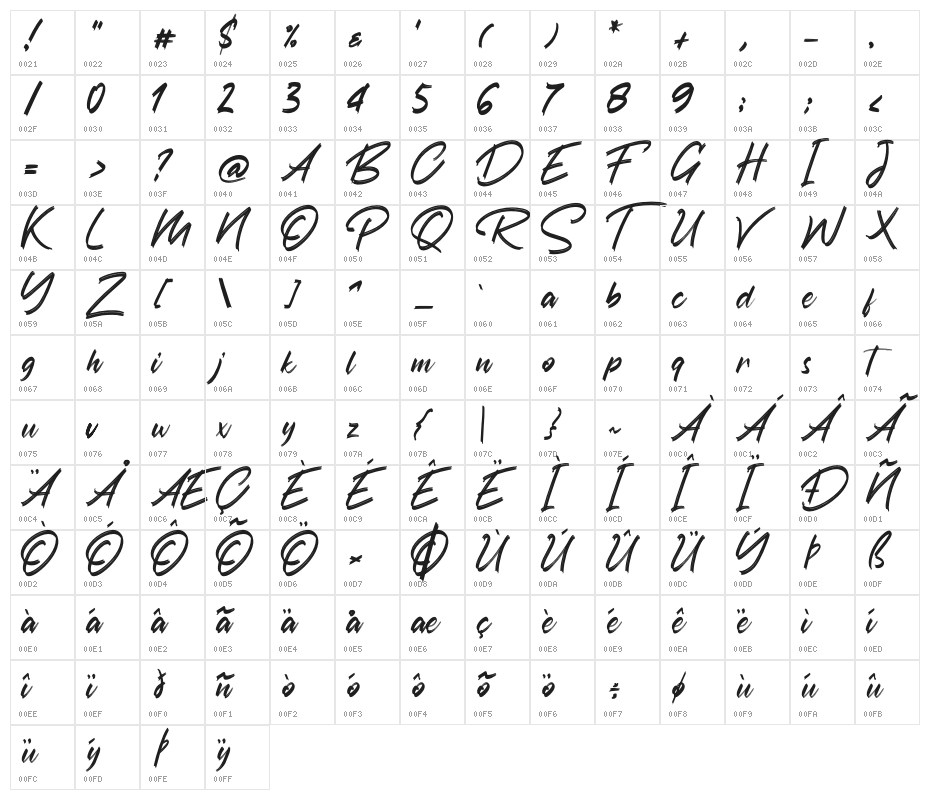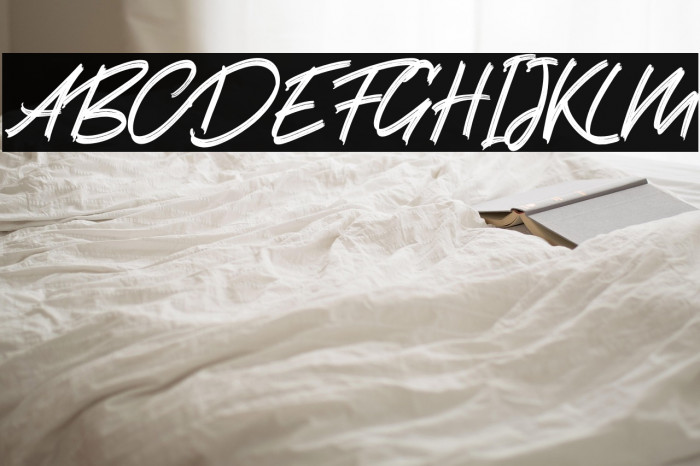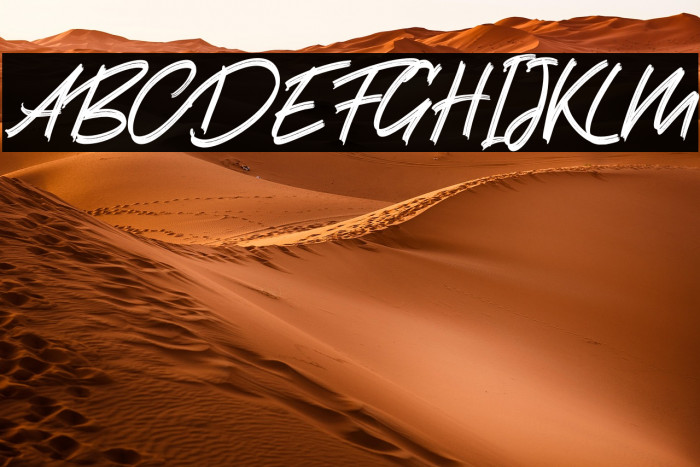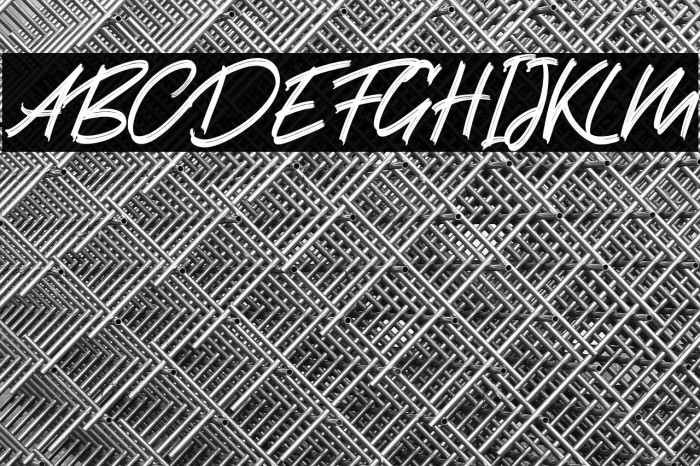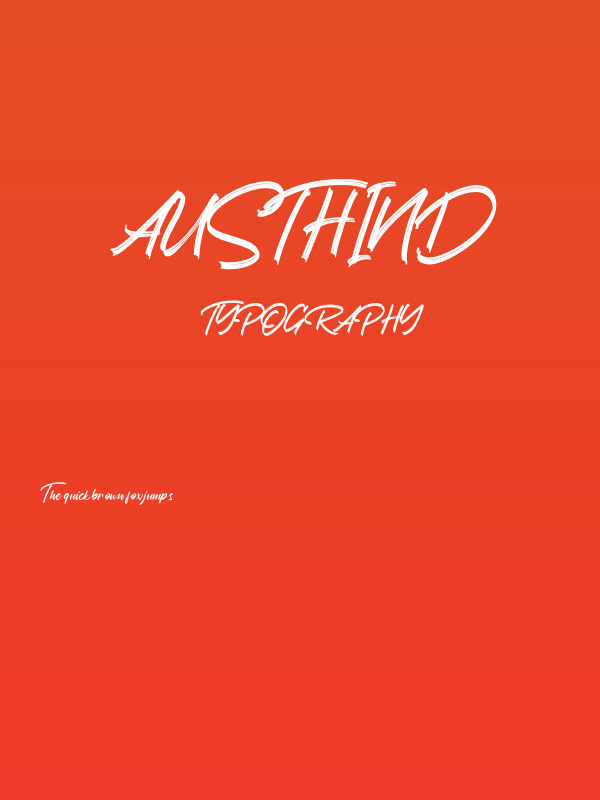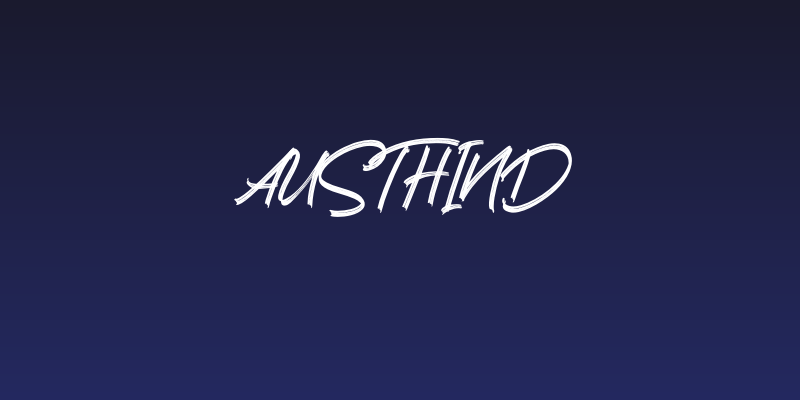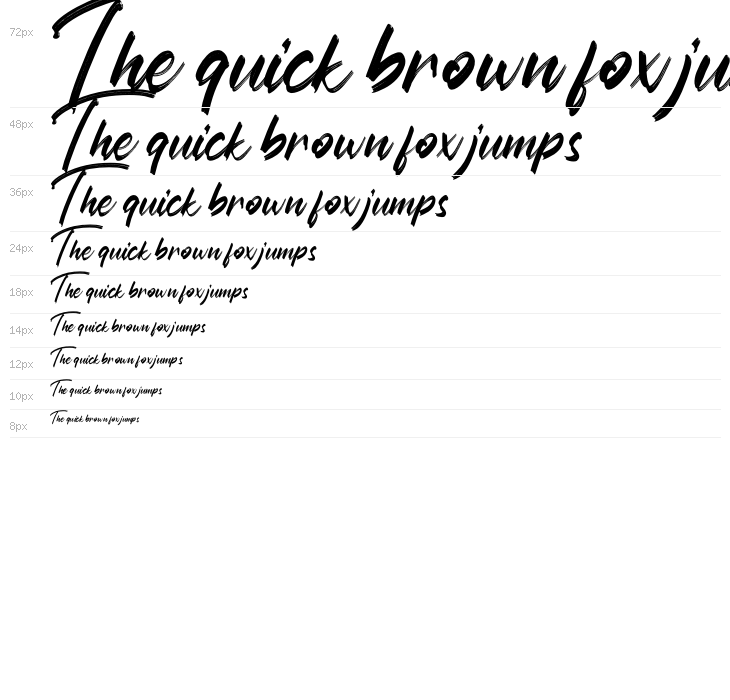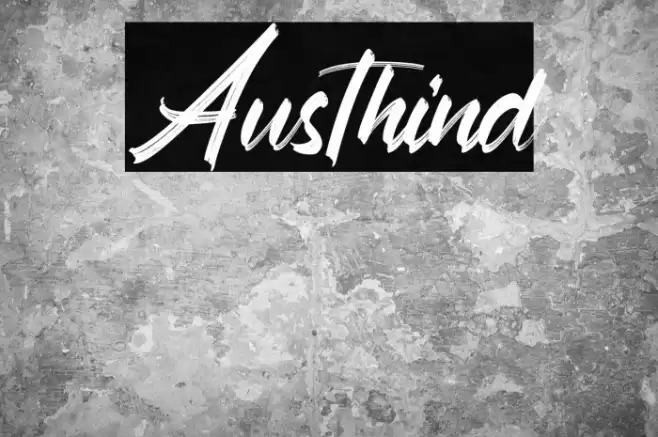
Austhind Font
Austhind Description
This font exhibits a dynamic and energetic script style, characterized by its bold and expressive strokes. The letters are crafted with a sense of motion, giving them a lively and spontaneous appearance. The uppercase and lowercase letters maintain a consistent flow, with some characters featuring unique flourishes that add to the overall aesthetic. The numbers and special characters are designed to complement the letterforms, maintaining the same bold and dynamic quality. This font is ideal for projects that require a touch of personality and flair.
Overall StyleModern, Decorative
Proposed ProjectsIdeal for branding, posters, invitations, and any design needing a personal, energetic touch.